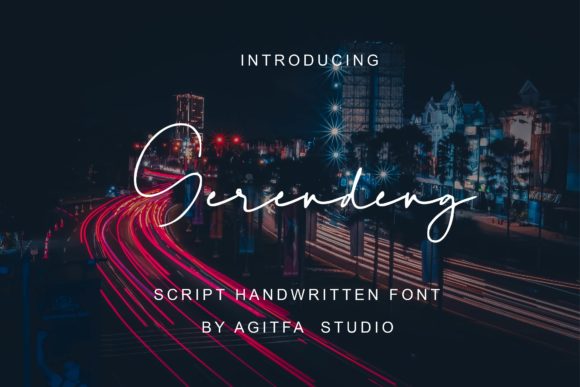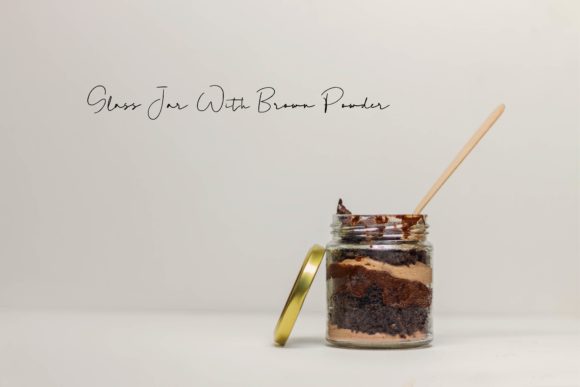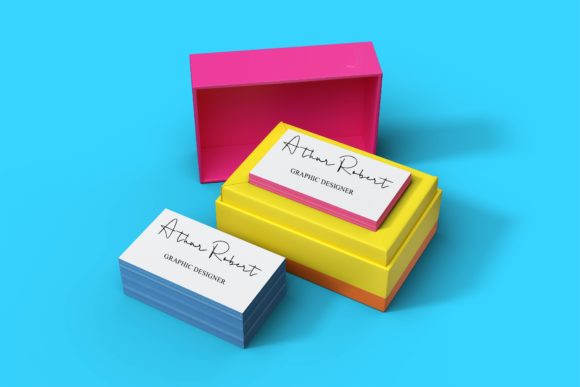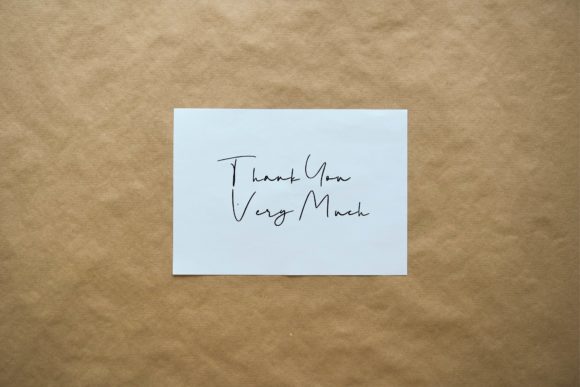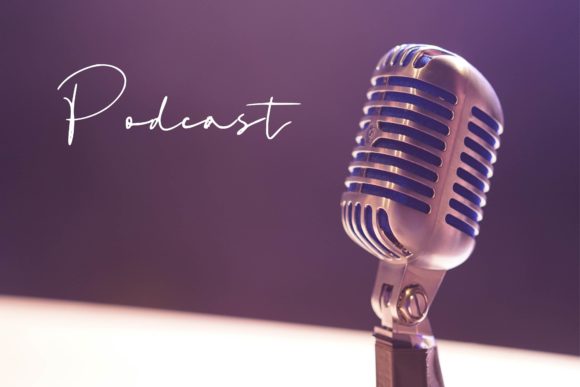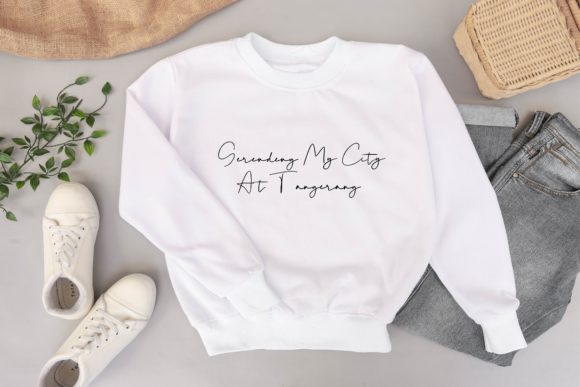
Gerendeng Font
About Gerendeng Font
Gerendeng is a thin lettered and delicate handwritten font. It is defined by smooth curves and is perfect for fashion branding or editorial designs. Add it confidently to your projects, and you will love the results.